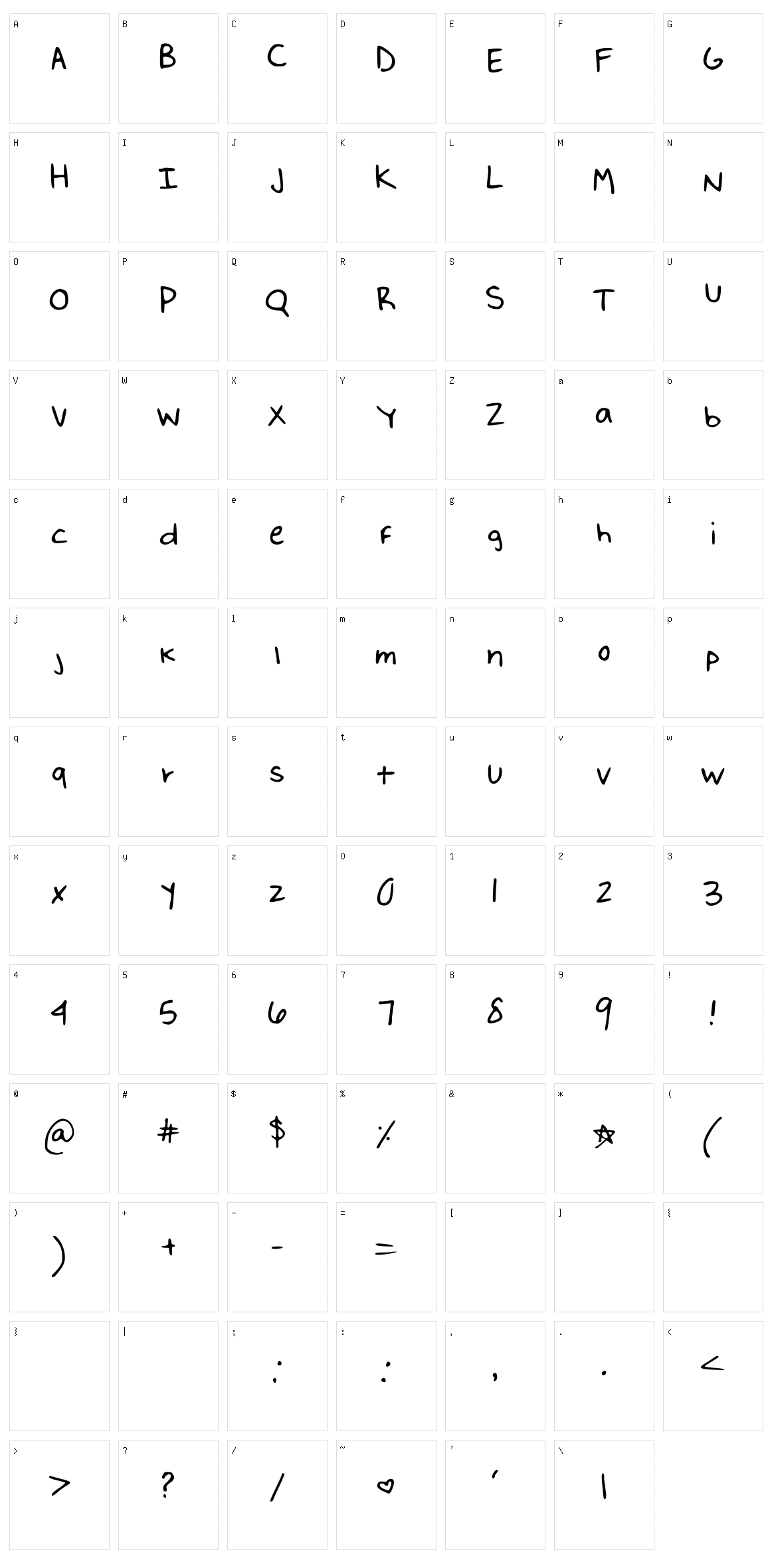
The free font Chai is carefully designed by Carli Smith, showcasing a thoughtful balance of creativity and usability and falls under the Script font style. When you download the ZIP file, it contains only 10.09 KB of font files, making it lightweight and quick to download. Please review the license details below to understand permitted usage and distribution rights. If license information is not available, we recommend using this font for personal projects only or contacting the author directly for commercial usage permissions.